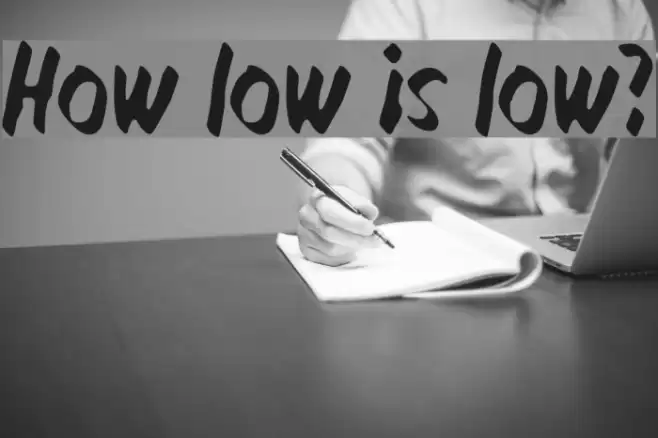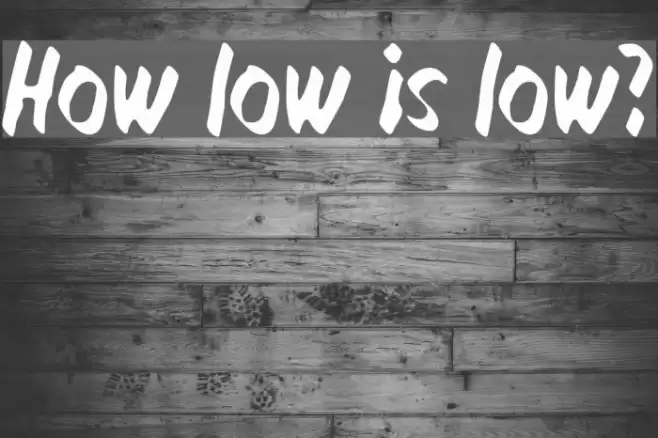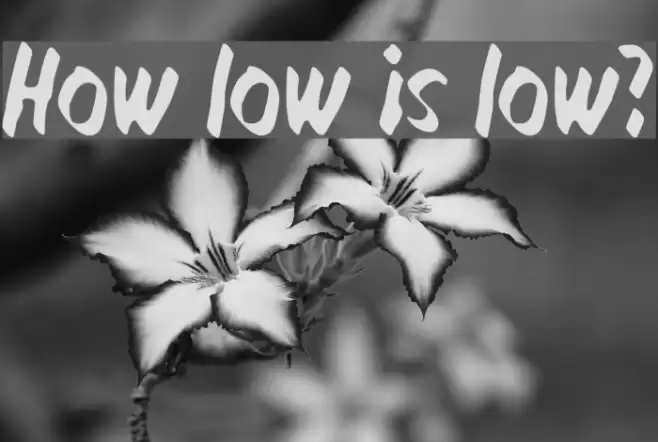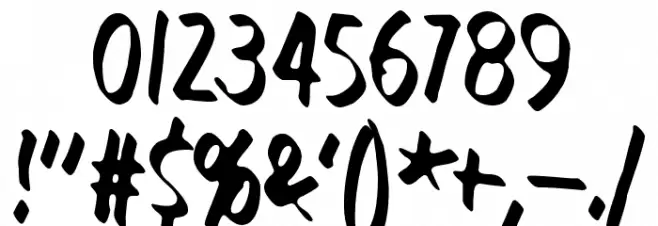
This font features a bold and expressive handwritten style, characterized by its dynamic and fluid strokes. The letters are slightly irregular, giving it a personal and informal feel. The uppercase and lowercase letters maintain a consistent style, with a playful yet legible appearance. The numbers and special characters are crafted with the same energetic flair, making them stand out. This font is ideal for projects that require a touch of creativity and individuality, such as artistic posters, personal branding, or creative invitations.
A bold, expressive handwritten font with dynamic strokes from Uncategorized fonts.
- Proposed Projects: Artistic posters, personal branding, creative invitations.
- Use Case: Logos, Headlines